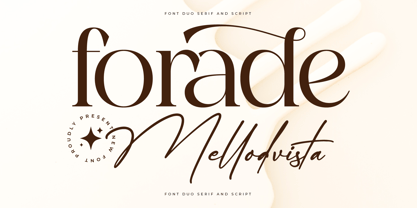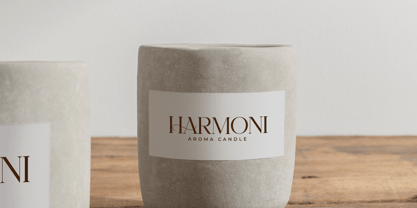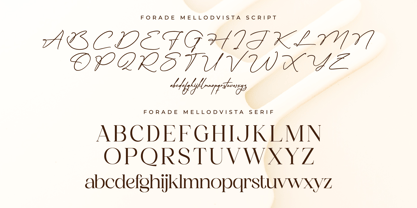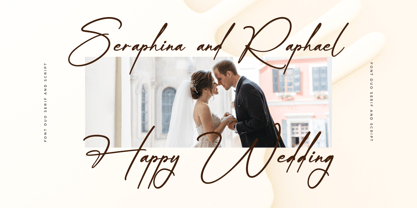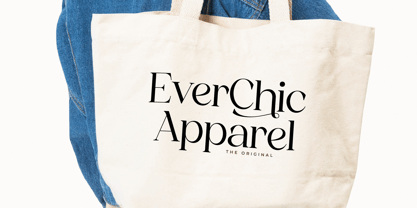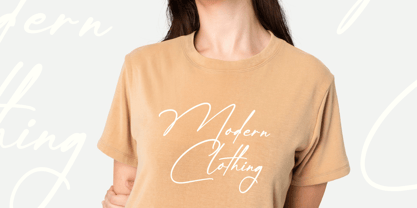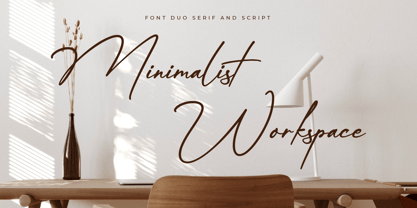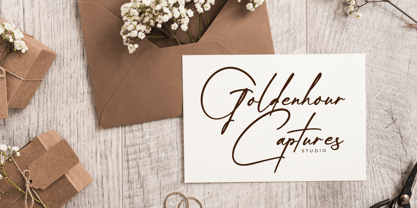
Forade Mellodvista Script
The Forade Mellodvista Script Font Family was designed by Heru Utama Putra and published by Letterena Studios. Forade Mellodvista Script contains 2 styles and family package options.
Forade Mellodvista is a unique duo typeface that combines classic serifs with graceful script elements. This font duo effortlessly balances sophistication and playfulness, making it perfect for a variety of creative projects. Whether you’re designing invitations, branding materials, or adding a touch of elegance to your work, Forade Mellodvista brings a harmonious blend of serif and script in a way that’s both versatile and visually appealing.